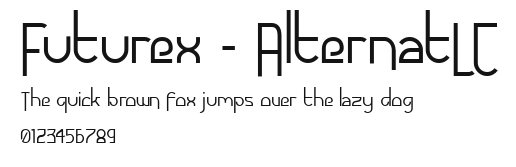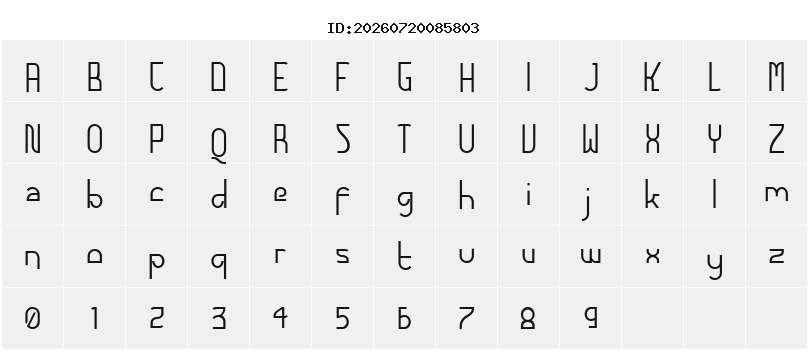
• Font Name: Futurex - AlternatLC
• Designer: Graham Meade & Apostrophe.
• Description: © Graham Meade and Apostrophic Laboratories. All rights reserved. This font is part of the Futurex project, which invites all type designers to create their own versions of this font using Futurex-Parts. For more information on how to become part of the project read the text file enclosed or send mail to apostrofe@home.com.
About Futurex - AlternatLC.ttf
Futurex - AlternatLC.ttf is a modern, elegant sans-serif font designed for ultimate readability and visual harmony. Perfect for branding, headlines, web design, and print materials.